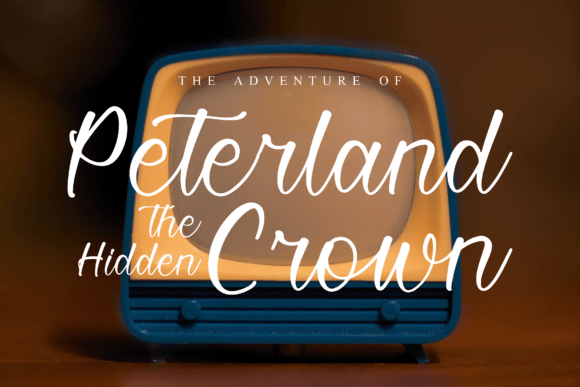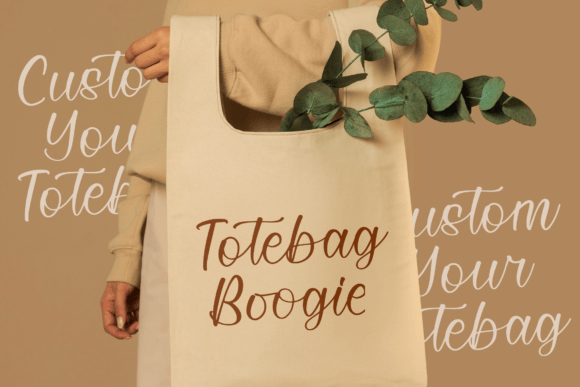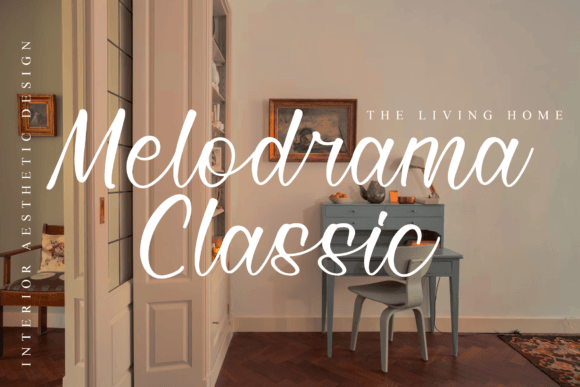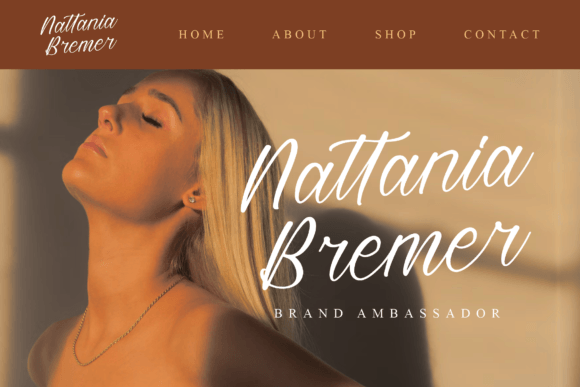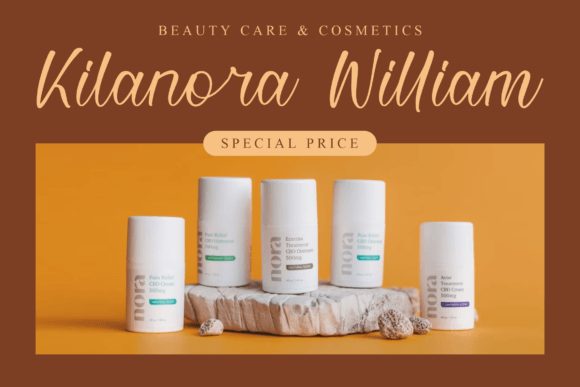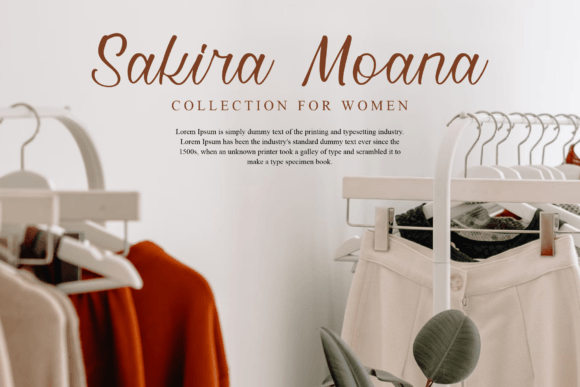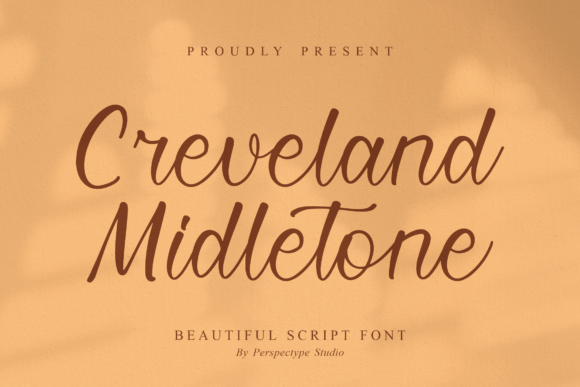
Discover the Elegance of Creveland Midletone Font
In the world of typography, few fonts manage to strike a balance between charm and elegance as effortlessly as the Creveland Midletone Font. This beautiful, handwritten font has captured the hearts of designers and crafters alike, and it’s easy to see why. With its unique blend of classic sophistication and modern flair, Creveland Midletone feels equally charming and elegant, making it the perfect addition to a wide range of design projects.
Aesthetic Appeal
Creveland Midletone’s aesthetic appeal lies in its delicate, cursive strokes and exquisite letterforms. Each character is carefully crafted to exude a sense of refinement and luxury, making it an excellent choice for designs that require a touch of sophistication. Whether you’re working on a wedding invitation, a thank you card, or a quote, this font is sure to elevate your design to new heights.
Versatility
One of the standout features of Creveland Midletone Font is its versatility. It looks stunning on a variety of design materials, including:
- Wedding invitations: Add a touch of romance and elegance to your wedding stationery with this beautiful font.
- Thank you cards: Express your gratitude in style with Creveland Midletone’s charming letterforms.
- Quotes: Give your inspirational quotes a sophisticated makeover with this gorgeous font.
- Greeting cards: Make your greeting cards stand out with Creveland Midletone’s unique and elegant style.
- Logos: Create a lasting impression with a custom logo featuring this beautiful font.
- Business cards: Elevate your professional image with Creveland Midletone’s refined and sophisticated look.
Design and Crafting Applications
Creveland Midletone Font is a favorite among designers and crafters for a variety of applications. Whether you’re creating:
- DIY crafts: Add a personal touch to your handmade crafts, such as journals, planners, and gift tags.
- Digital art: Use Creveland Midletone to add a touch of elegance to your digital artwork, such as illustrations and graphics.
- Stationery: Create beautiful stationery sets, including notecards, letterheads, and envelopes.
- Branding materials: Develop a cohesive brand identity with Creveland Midletone’s sophisticated and refined look.
Why Choose Creveland Midletone Font?
With so many fonts available, why choose Creveland Midletone? Here are just a few reasons:
- Unique style: Creveland Midletone’s distinctive letterforms set it apart from other fonts.
- Elegant and charming: This font exudes sophistication and refinement, making it perfect for designs that require a touch of luxury.
- Versatile: Use Creveland Midletone for a wide range of design projects, from wedding stationery to branding materials.
- Easy to read: Despite its elegant style, Creveland Midletone is surprisingly easy to read, making it perfect for body text and captions.
In conclusion, Creveland Midletone Font is a beautiful, elegant, and charming font that is sure to elevate your design projects to new heights. With its unique style, versatility, and ease of use, it’s no wonder that designers and crafters alike have fallen in love with this gorgeous font. Whether you’re working on a wedding invitation, a logo, or a digital art project, Creveland Midletone is the perfect choice for anyone looking to add a touch of sophistication and refinement to their design.